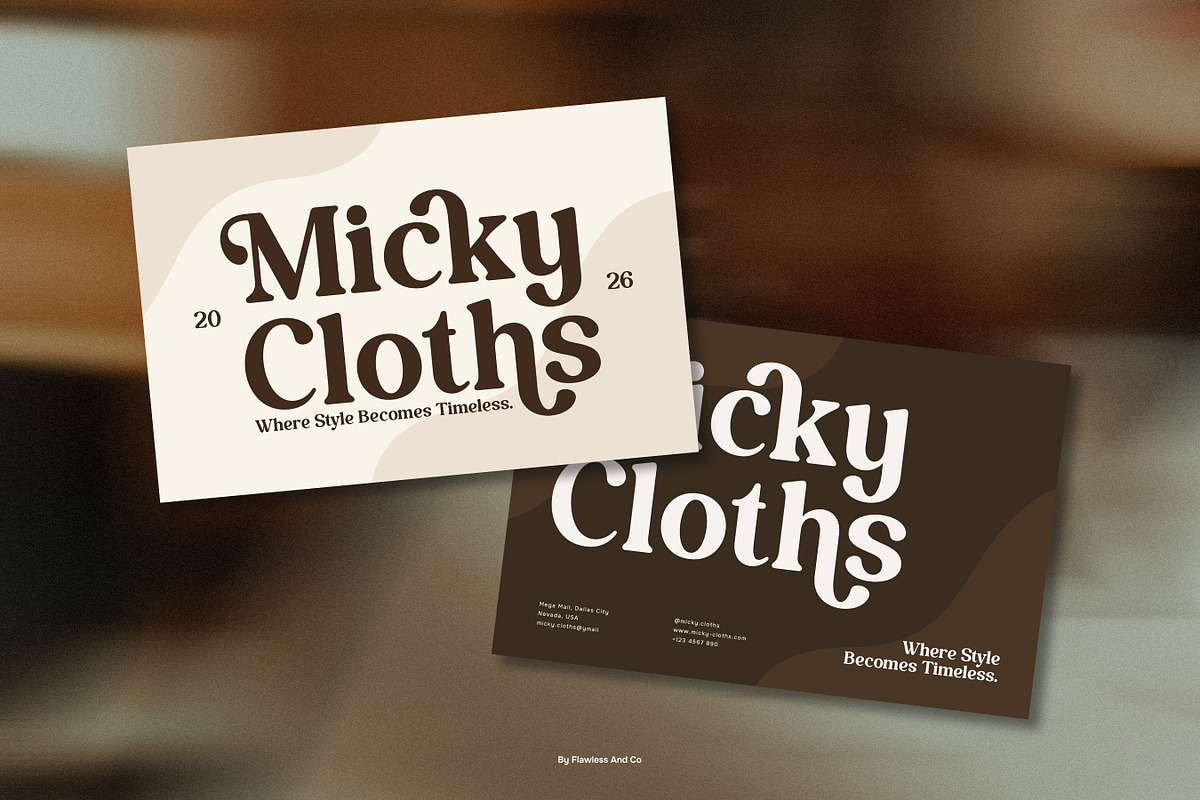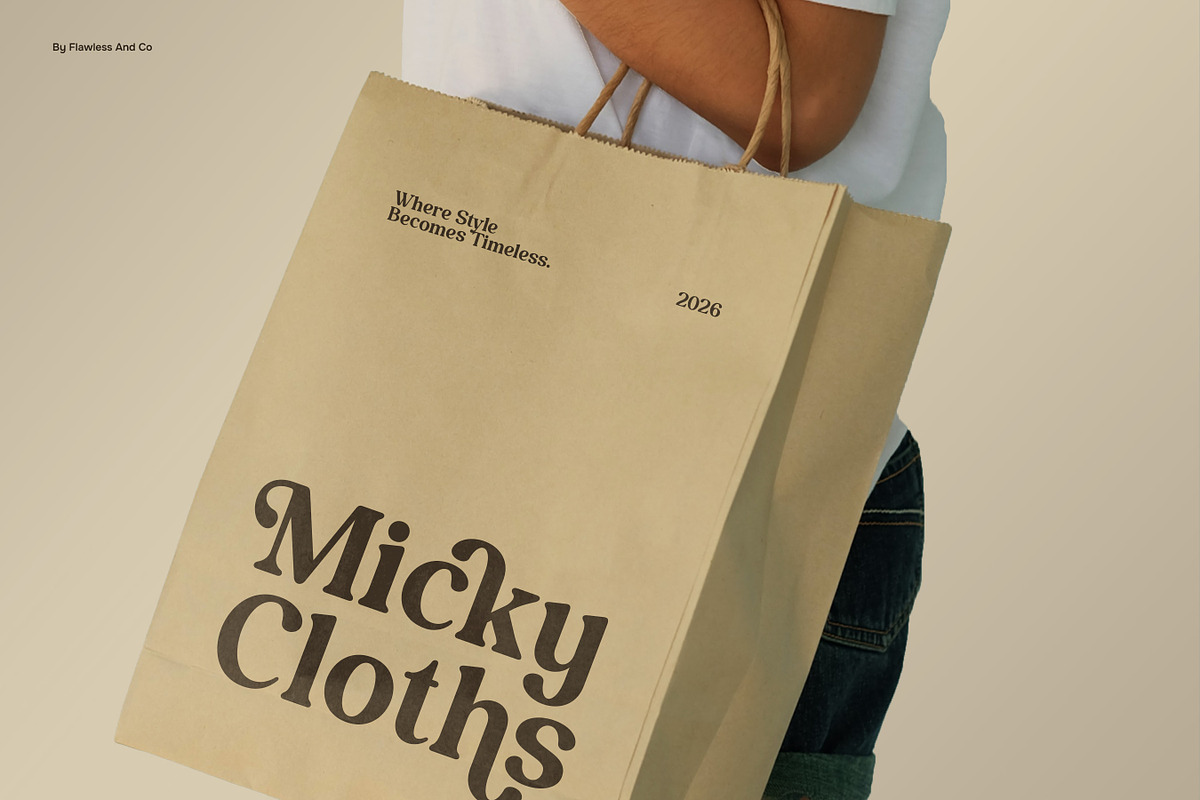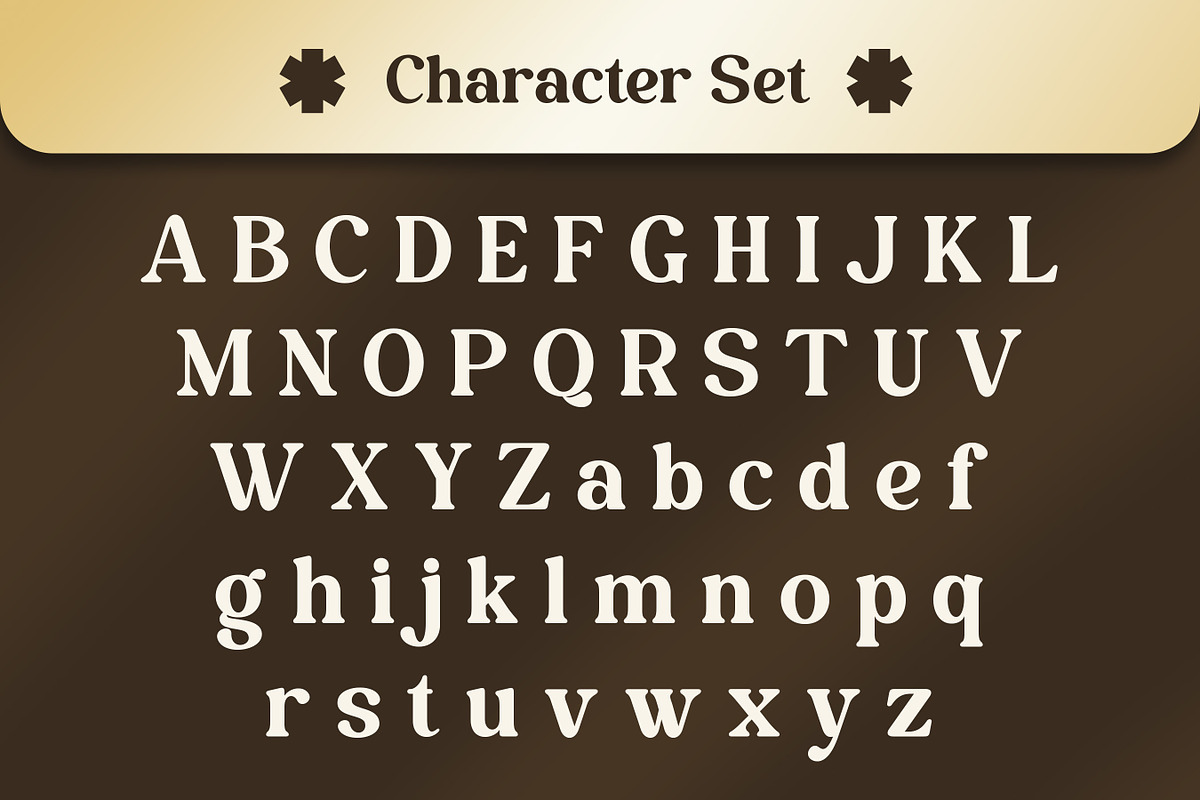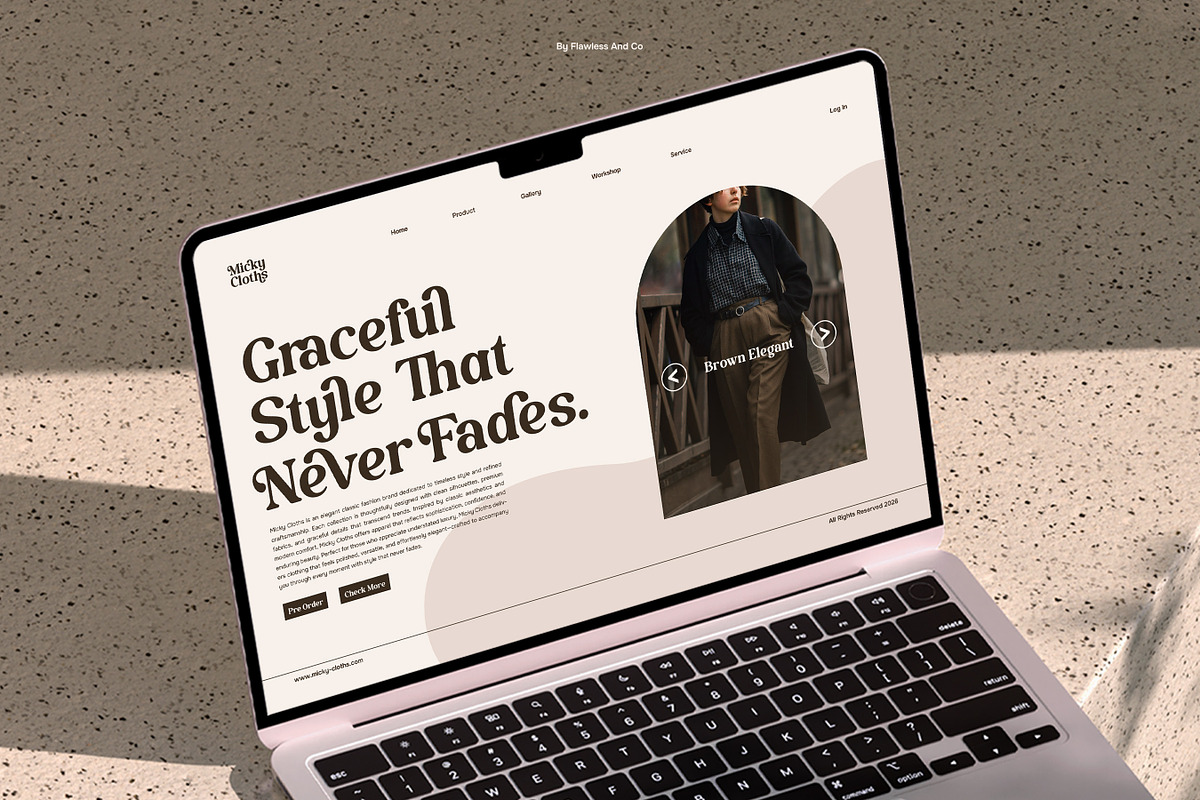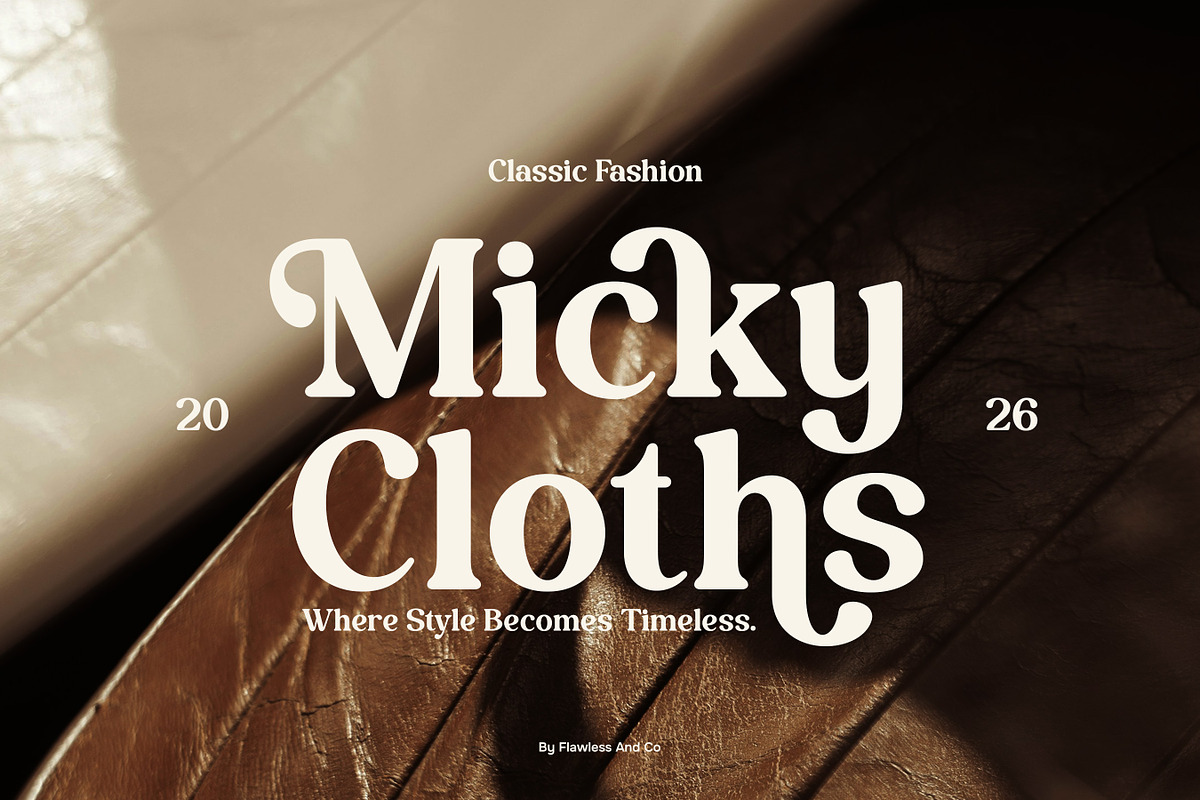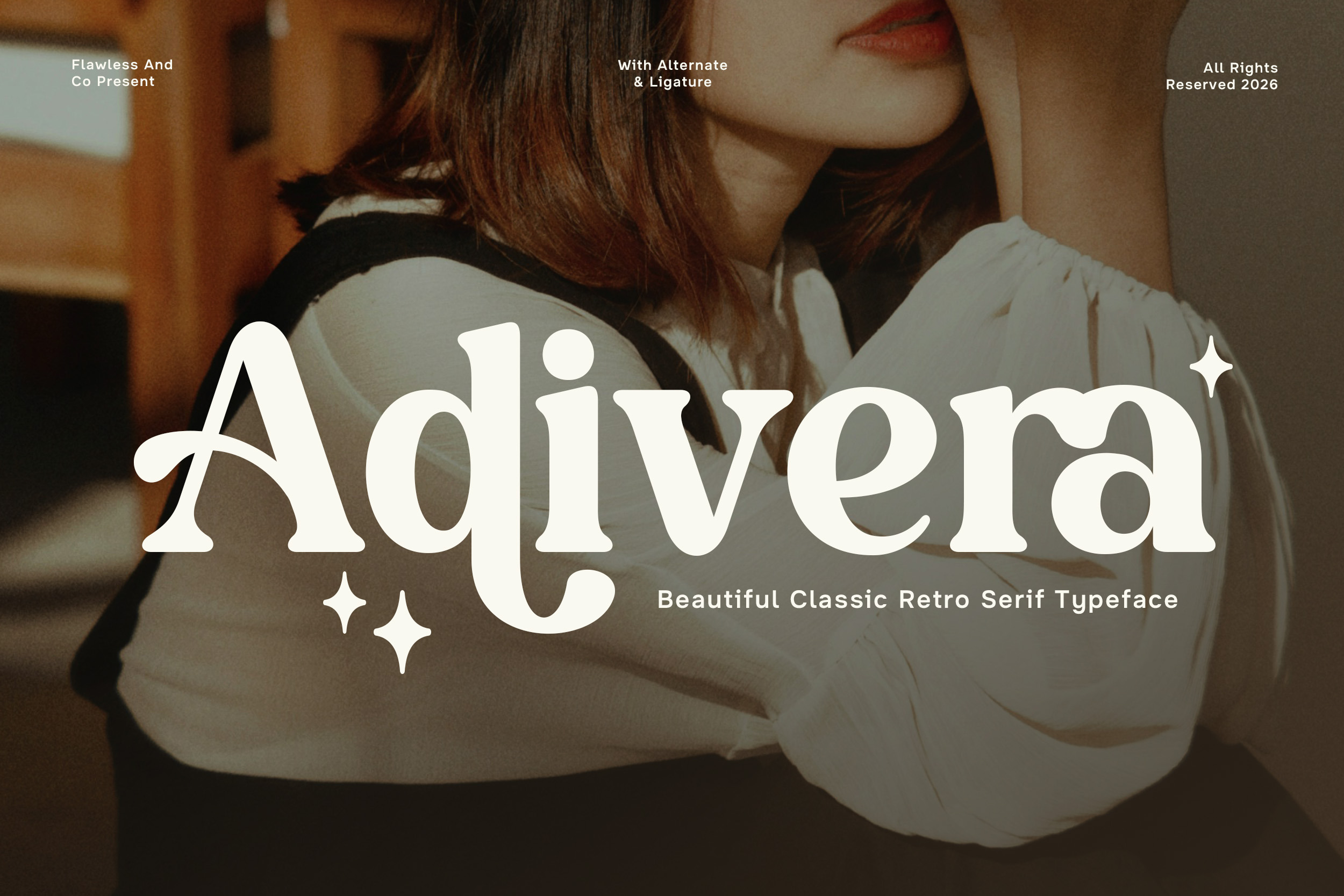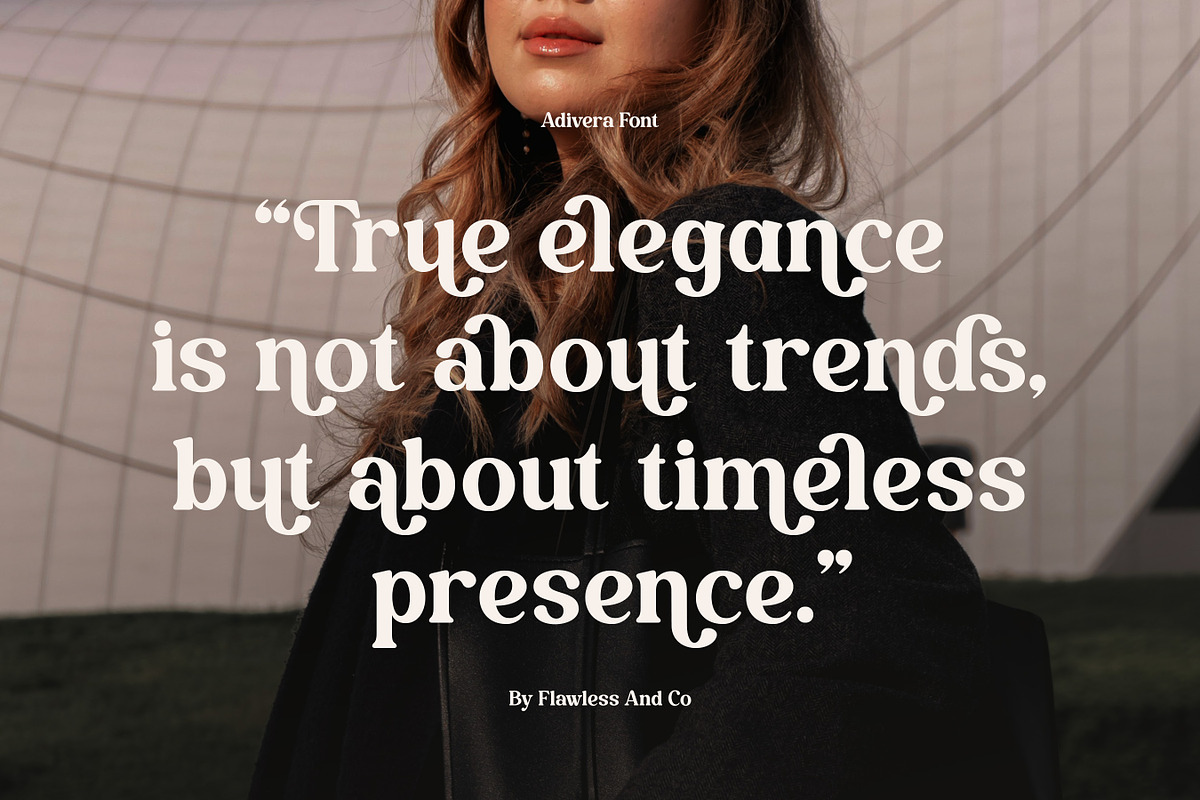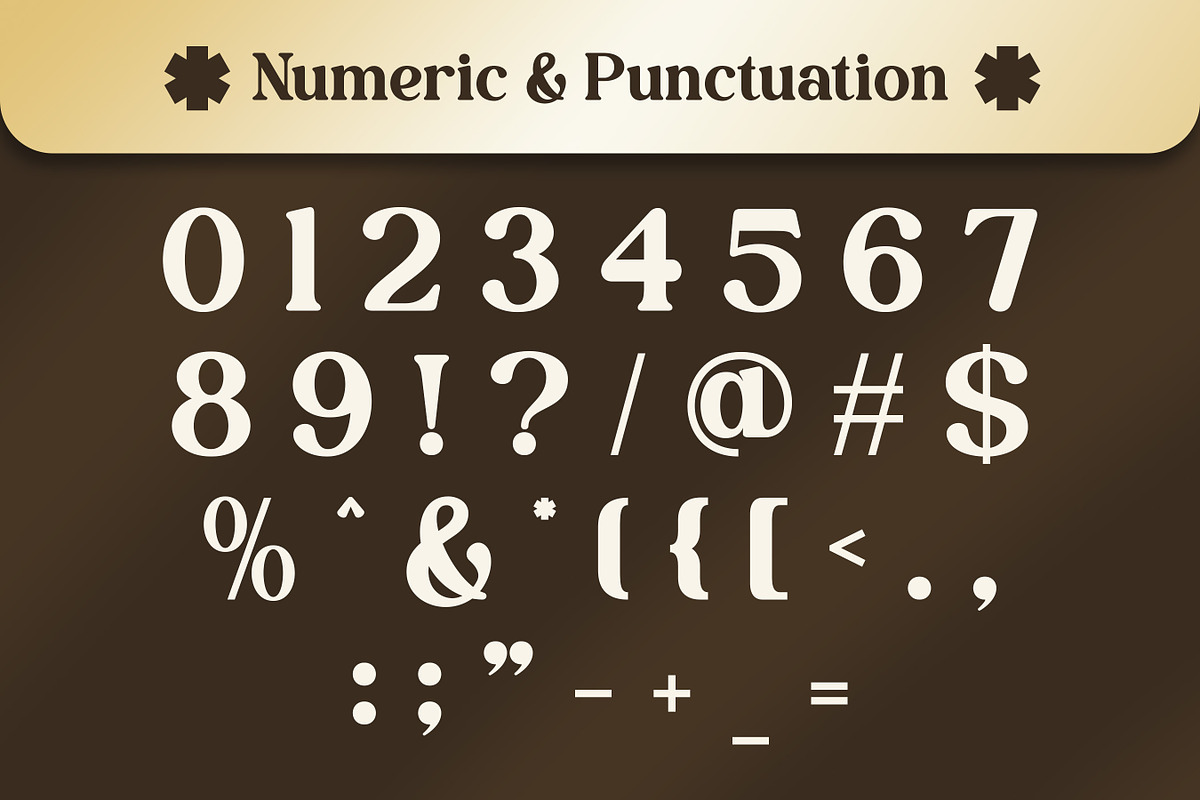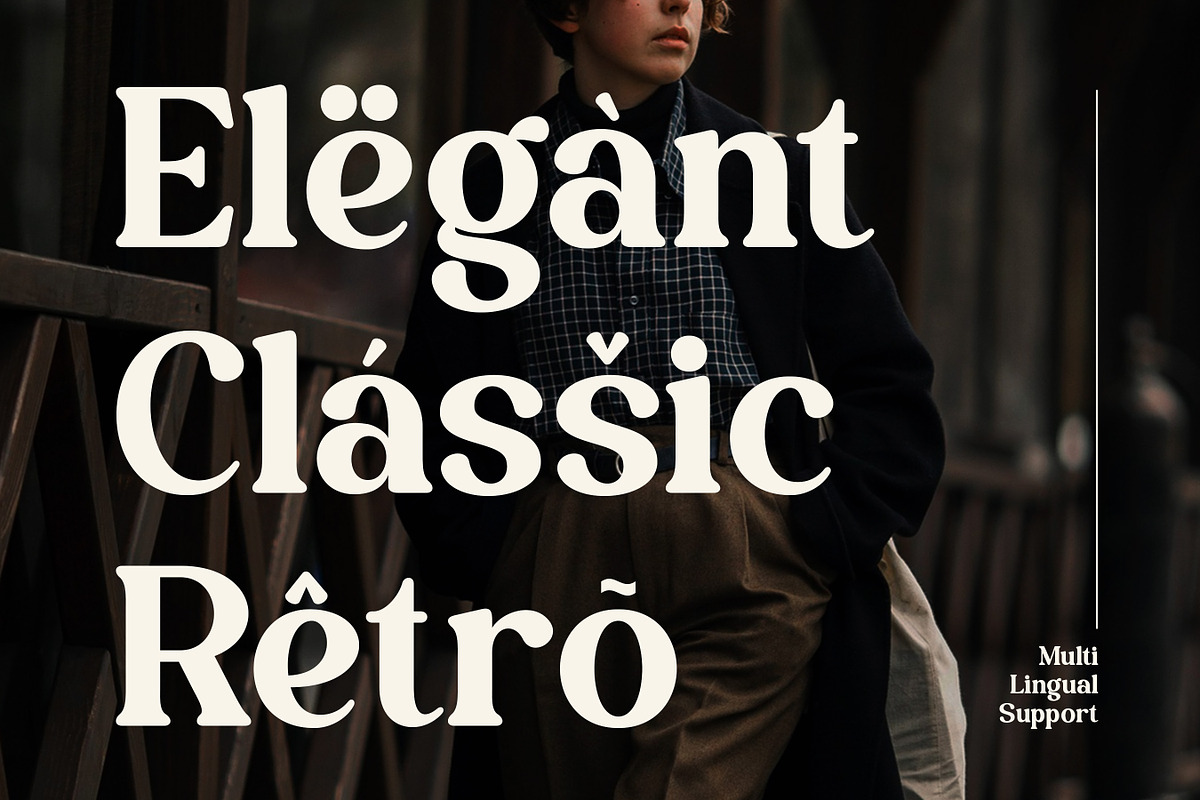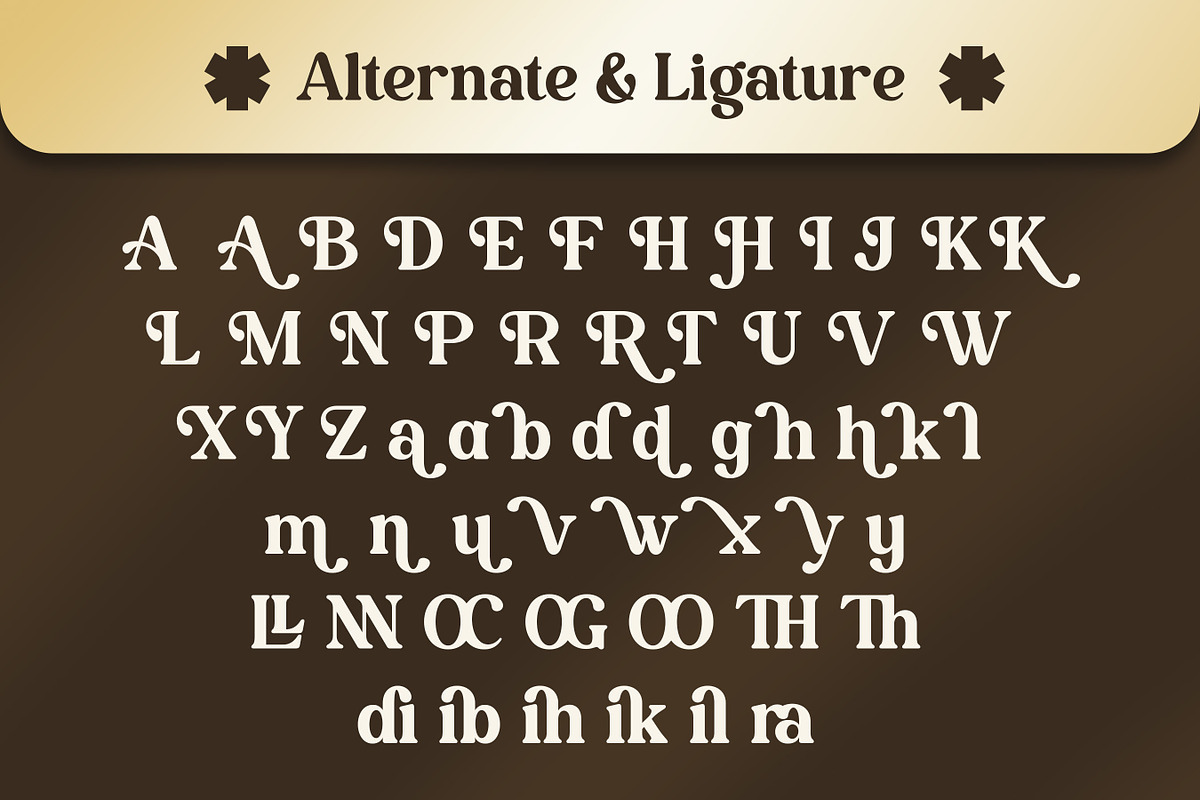
Adivera - Retro Serif Font
Adivera is a beautiful classic retro serif typeface that blends timeless elegance with a warm vintage character. Its retro personality makes it perfect for creating eye-catching visuals while maintaining a classy and professional look. With its balanced letterforms and stylish presence, Adivera works effortlessly across both headlines and display text. Whether you’re crafting a brand identity or designing standout typography, this font delivers strong visual impact with a touch of classic charm.
Who Should Use Adivera?
Adivera is perfect for designers and creatives who love blending vintage charm with modern sophistication. It’s ideal for brand designers working on retro-inspired logos, boutique identities, and heritage-style branding that requires elegance and personality.
Suitable For:
- Retro and vintage branding
- Boutique and lifestyle logos
- Fashion and beauty packaging
- Café and restaurant branding
- Editorial headlines and magazine layouts
- Posters and promotional materials
- Social media visuals with a classic touch
- Elegant typography and quote designs